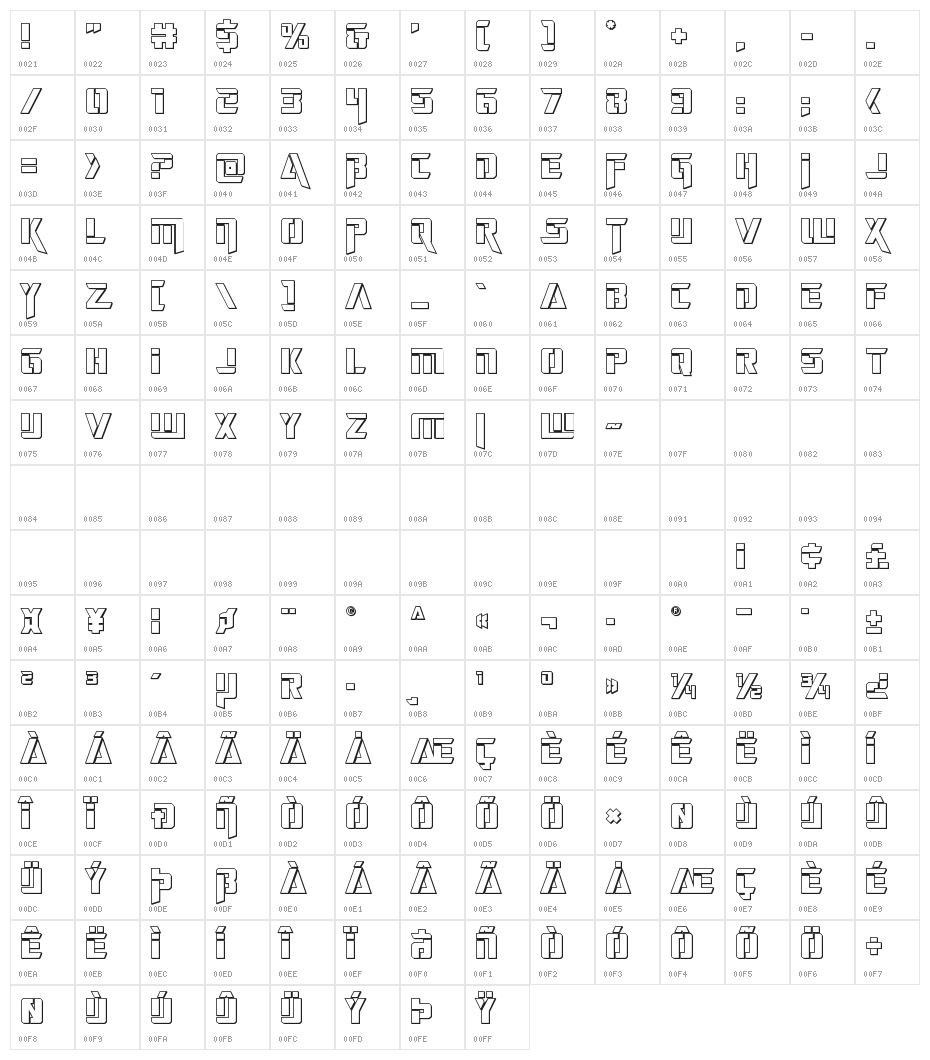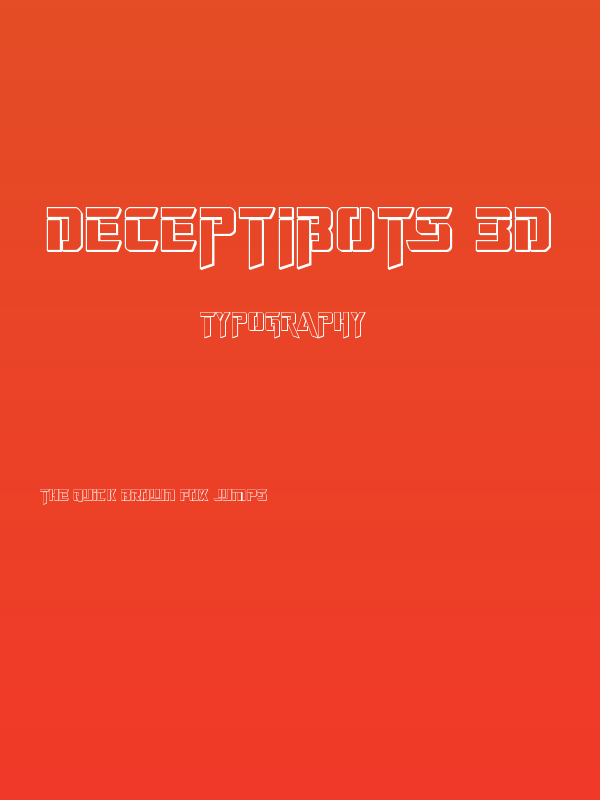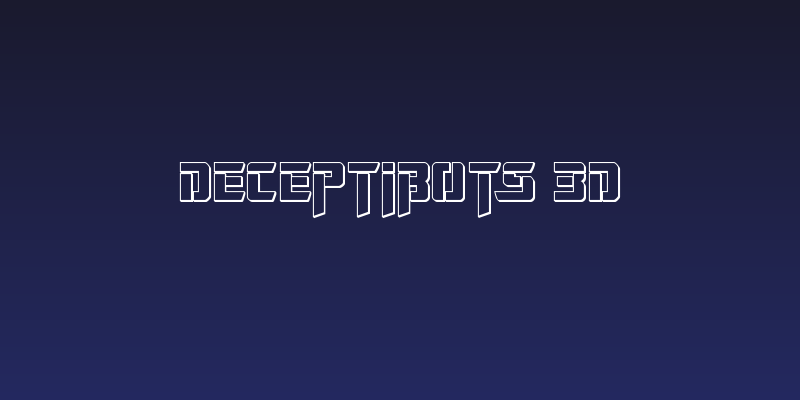
Deceptibots 3D Font
Deceptibots 3D Description
This font features a bold, futuristic design with a three-dimensional effect. The characters are outlined with a thick border, giving them a strong presence. The angular and geometric shapes create a sense of movement and dynamism, reminiscent of sci-fi and robotic themes. The uppercase and lowercase letters maintain a consistent style, with sharp edges and a blocky appearance. Numbers and special characters are designed to match the overall aesthetic, ensuring uniformity across all glyphs. This font is ideal for projects that require a modern and edgy look, such as video game titles, movie posters, or tech-related branding.
| Overall Style | Futuristic, Modern |
| Proposed Projects | Ideal for sci-fi movie posters, video game titles, tech branding, and futuristic designs. |